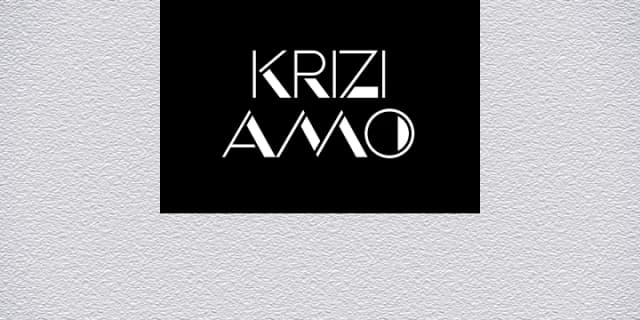
About Anabolic Spheroid Pro Font
Anabolic Spheroid Pro by CheapProFonts channels a bold, retro-futuristic energy through its circular letterforms and geometric cutouts, a design that sits comfortably between hippie warmth and sci-fi edge. Every single glyph has been completely redrawn from scratch, with expanded variation between uppercase and lowercase letters to prevent the repetition that happens when words use the same form twice. The OpenType stylistic alternates menu, accessible through Stylistic Set SS01, gives you direct access to the original letterform set, effectively doubling your creative options on the fly. All diacritics and accents have been redesigned and sized prominently in the spirit of the typeface's signature dotted i, ensuring consistent visual weight whether you're using standard Latin characters or accented forms for different languages.
This typeface really shines in any project that benefits from offbeat personality: retro concert posters, custom vinyl record labels, bohemian-inspired boutique packaging, DIY band merchandise, festival branding, and independent record store signage all feel like natural homes for this design. Comic book cover lettering is another obvious fit, where the circular forms and playful cutouts complement bold storytelling. The eccentric letterforms suit designers building decorative projects with real visual confidence.
Anabolic Spheroid Pro Font is a decorative font that shines as a display or heading face. Pair it with a clean sans-serif or serif font for body text β the contrast creates a clear hierarchy while the two styles stay balanced and easy to read.